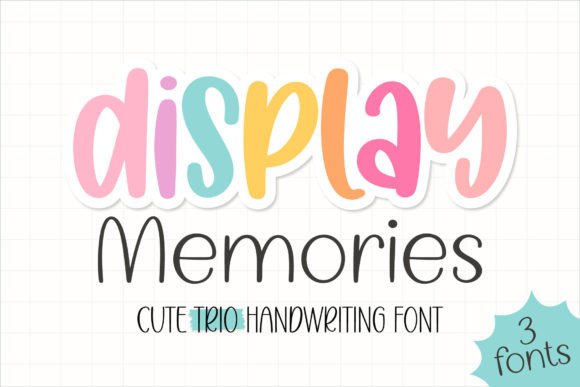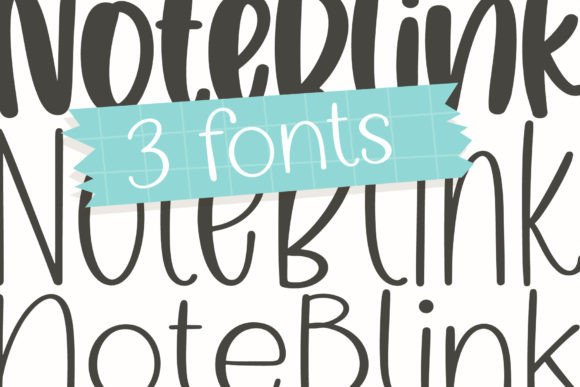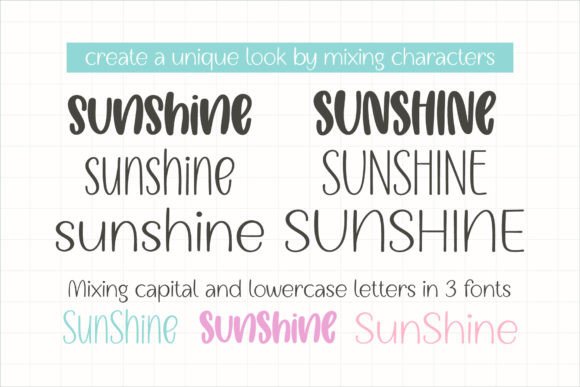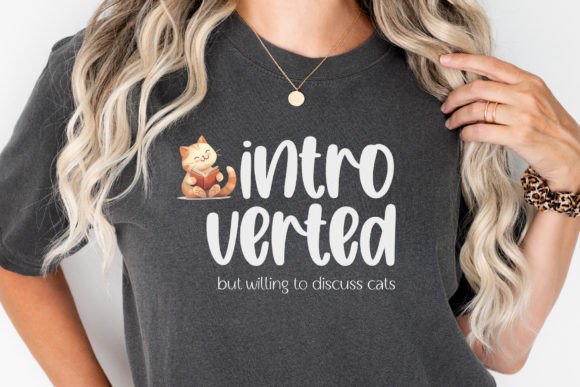
Display Memories Font
About the Display Memories Font
We are excited to introduce Display Memories Font, a must-have typeface for any serious designer. Display Memories is a sweet and cute handwritten trio font. Fall in love with its incredibly versatile style and use it to create gorgeous wedding invitations, beautiful stationary art, eye-catching social media posts, and much more!
Display Memories excels in applications requiring a touch of friendly charm. It’s ideal for short headlines, branding elements for businesses targeting a youthful or feminine demographic, and packaging for products emphasizing handcrafted quality. Avoid using it for large blocks of text or UI elements; its handwritten nature compromises readability in extended passages.
Pairing it with a clean sans-serif like Lato or Open Sans provides a strong contrast, balancing the casual script with a modern feel. For a more sophisticated look, consider pairing it with a delicate serif font like Playfair Display. This combination retains the friendly personality while adding a touch of elegance.
The font’s core personality is undeniably playful and approachable, making it a strong choice for projects that need a lighthearted, hand-drawn aesthetic.
Display Memories Font Example